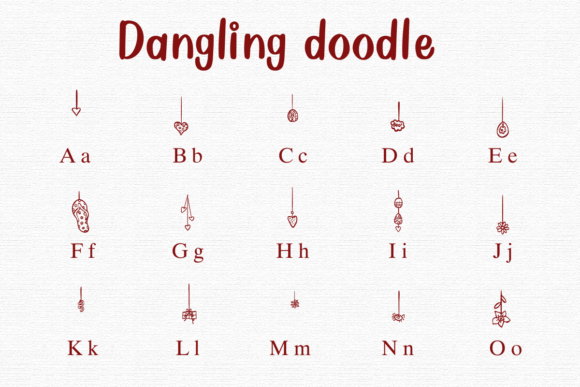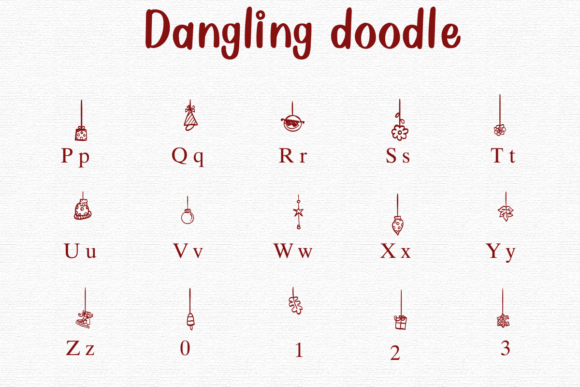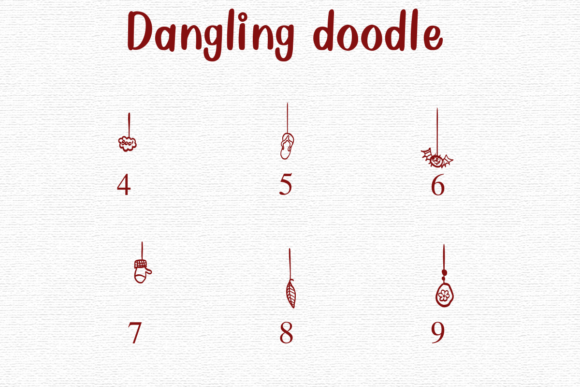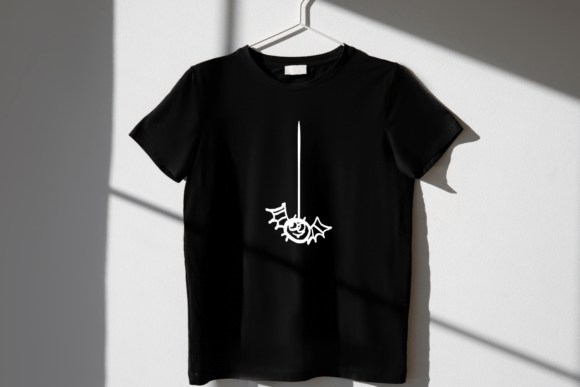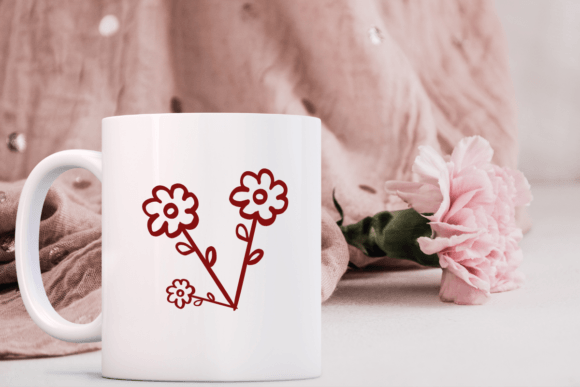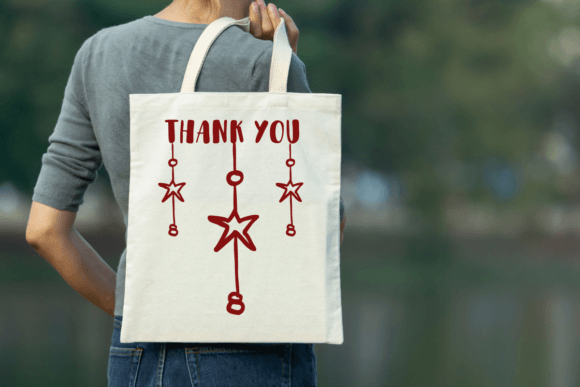
Dangling Doodle Font: Add a Playful Touch to Your Designs
Are you tired of using the same old fonts in your designs? Do you want to add a creative and whimsical touch to your projects? Look no further than the Dangling Doodle Font! This playful dingbat font is perfect for designers, crafters, and anyone looking to add a bit of quirky charm to their work.
What is Dangling Doodle Font?
Dangling Doodle Font is a unique and fun font that features a collection of whimsical drawings instead of letters. Each character in the font is a little picture that can be used in place of text to add a creative touch to your projects. The font is perfect for decorations, crafts, or any design that needs a bit of personality.
Key Features of Dangling Doodle Font
- Playful and Whimsical Designs: The font features a wide range of fun and playful designs, from cute animals to colorful shapes and symbols.
- Versatile: The font can be used in a variety of projects, from digital designs to handmade crafts.
- Unique and Creative: The font’s unique designs will add a touch of personality to your projects and help them stand out.
Uses for Dangling Doodle Font
The Dangling Doodle Font is perfect for a wide range of projects, including:
- Decorations: Use the font to create custom decorations, such as party banners, garlands, and gift tags.
- Crafts: The font is perfect for handmade crafts, such as scrapbooking, card making, and journaling.
- Digital Designs: Use the font in digital designs, such as social media graphics, blog posts, and presentations.
- Stationery: Create custom stationery, such as notecards, stickers, and invitations.
Tips for Using Dangling Doodle Font
Here are a few tips for using the Dangling Doodle Font:
- Mix and Match: Mix and match different designs to create a unique and personalized look.
- Experiment with Colors: Experiment with different colors and patterns to add depth and interest to your designs.
- Use as a Background: Use the font as a background element to add texture and interest to your designs.
- Get Creative: Don’t be afraid to get creative and try new things! The Dangling Doodle Font is all about having fun and adding a playful touch to your designs.
The Dangling Doodle Font is a fun and playful dingbat font that is perfect for designers, crafters, and anyone looking to add a creative touch to their projects. With its unique and whimsical designs, the font is sure to add a bit of quirky charm to your work. So why not give it a try and see what kind of creative and playful designs you can come up with?